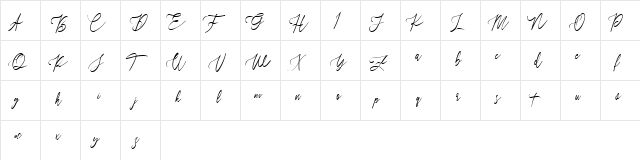
Bestiest Free Regular
| Foundry | MaulanaCreative |
| Designer | MaulanaCreative |
Design Context for Bestiest Free Typeface
Bestiest Free is a composed and adaptable typeface that performs quietly and consistently across a wide range of design contexts.